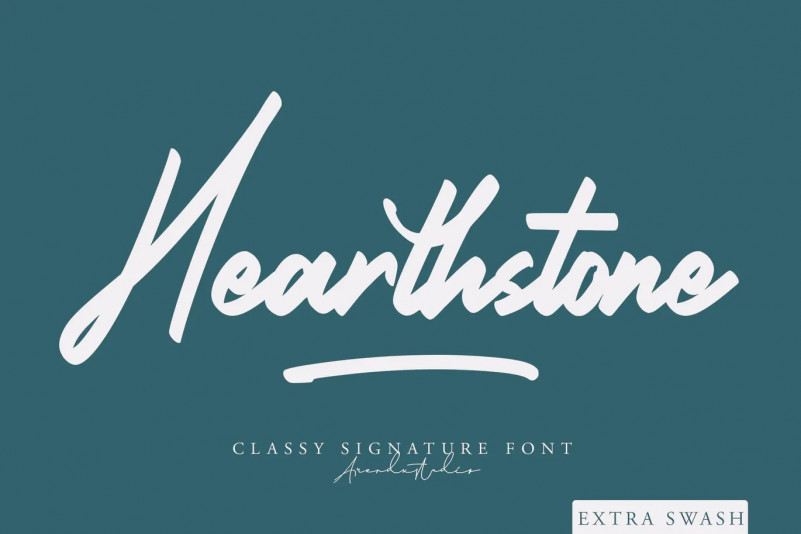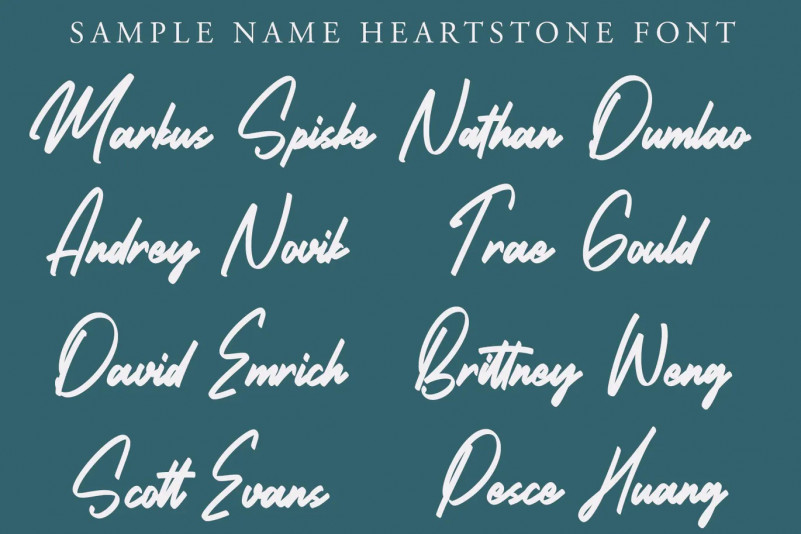
Hearthstone Font
Hearthstone – Signature Font is a classy signature script with a natural & stylish flow. This collection of scripts is perfect for personal branding. this works well for many applications. Everything from personal branding & wedding invitations to advertising could benefit from this collection of signature fontsOTF | TTF